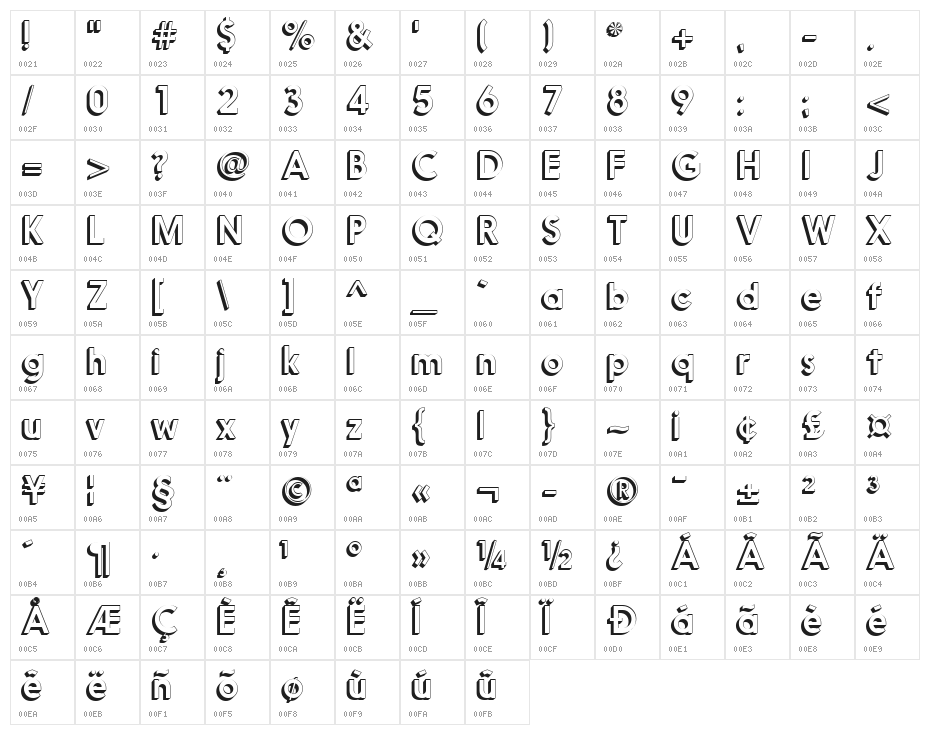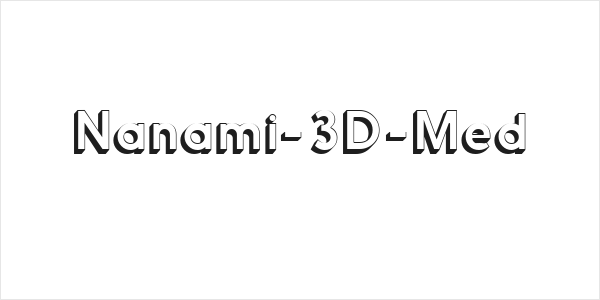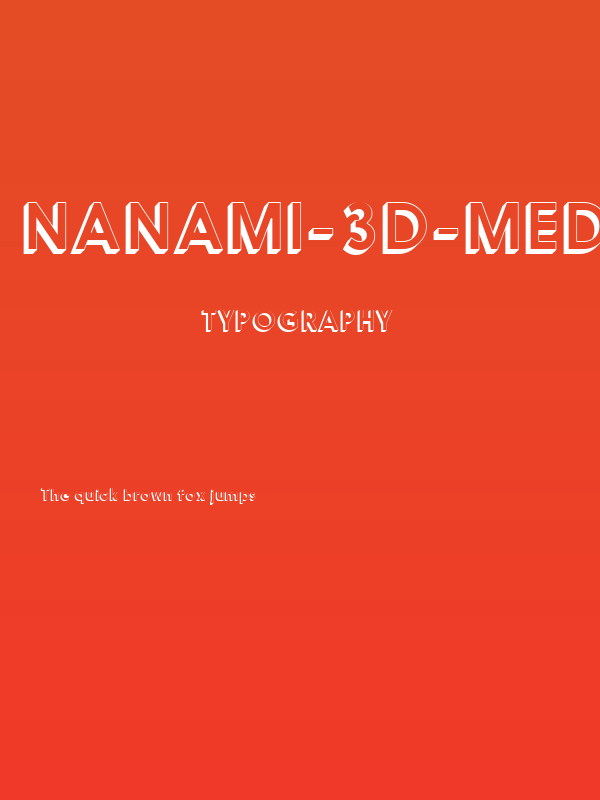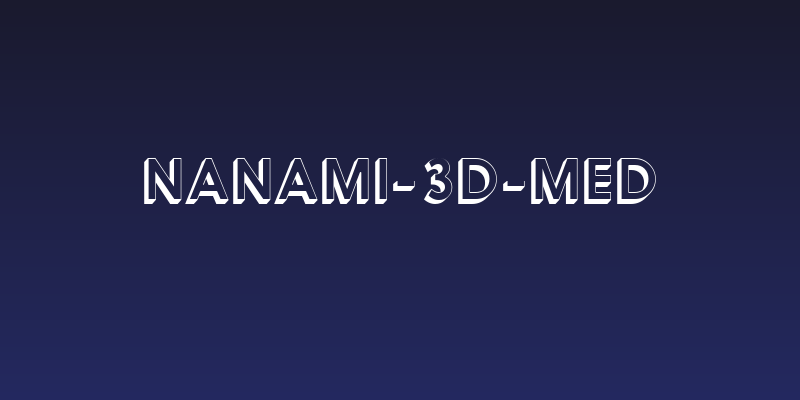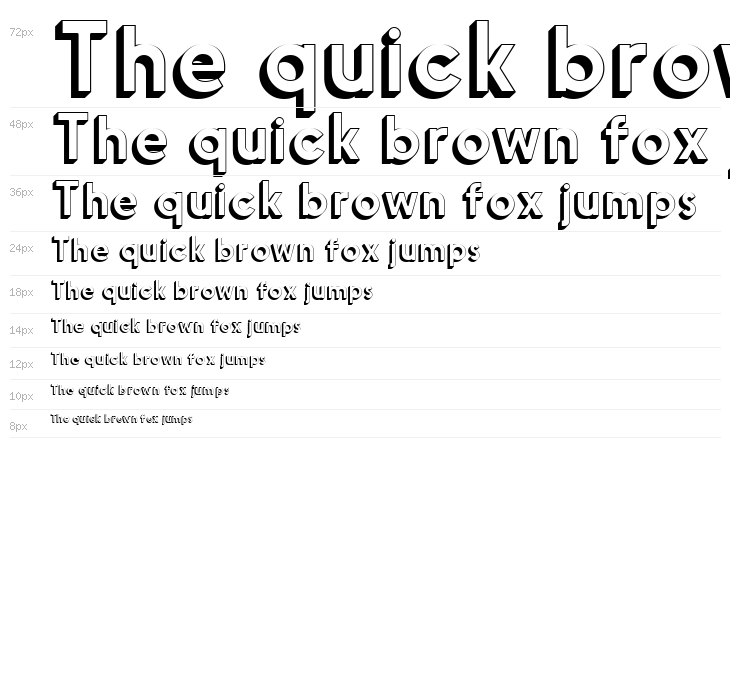
Nanami-3D-Med Font
Nanami-3D-Med Description
This font features a bold, three-dimensional style with a strong presence. Each character is outlined with a shadow effect, giving it a distinct 3D appearance. The uppercase and lowercase letters maintain a consistent width, contributing to a cohesive look. The numerals and special characters are designed with the same boldness and shadow, ensuring uniformity across all elements. The font's clean lines and geometric shapes make it highly legible, while the 3D effect adds a playful and modern twist. It's perfect for projects that require a standout, eye-catching typeface.
| Proposed Projects | Ideal for headlines, posters, branding, and any design needing a bold, eye-catching typeface. |